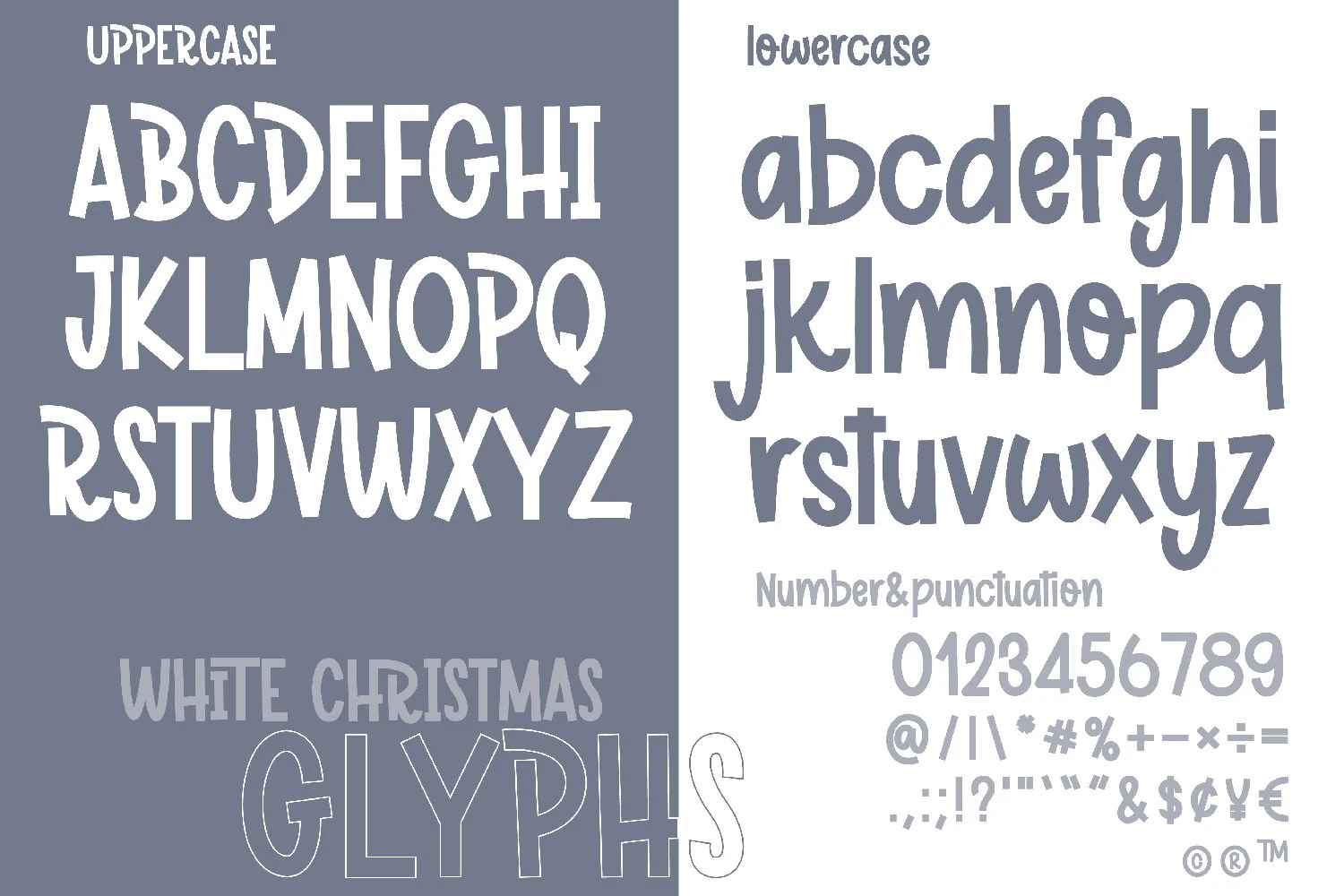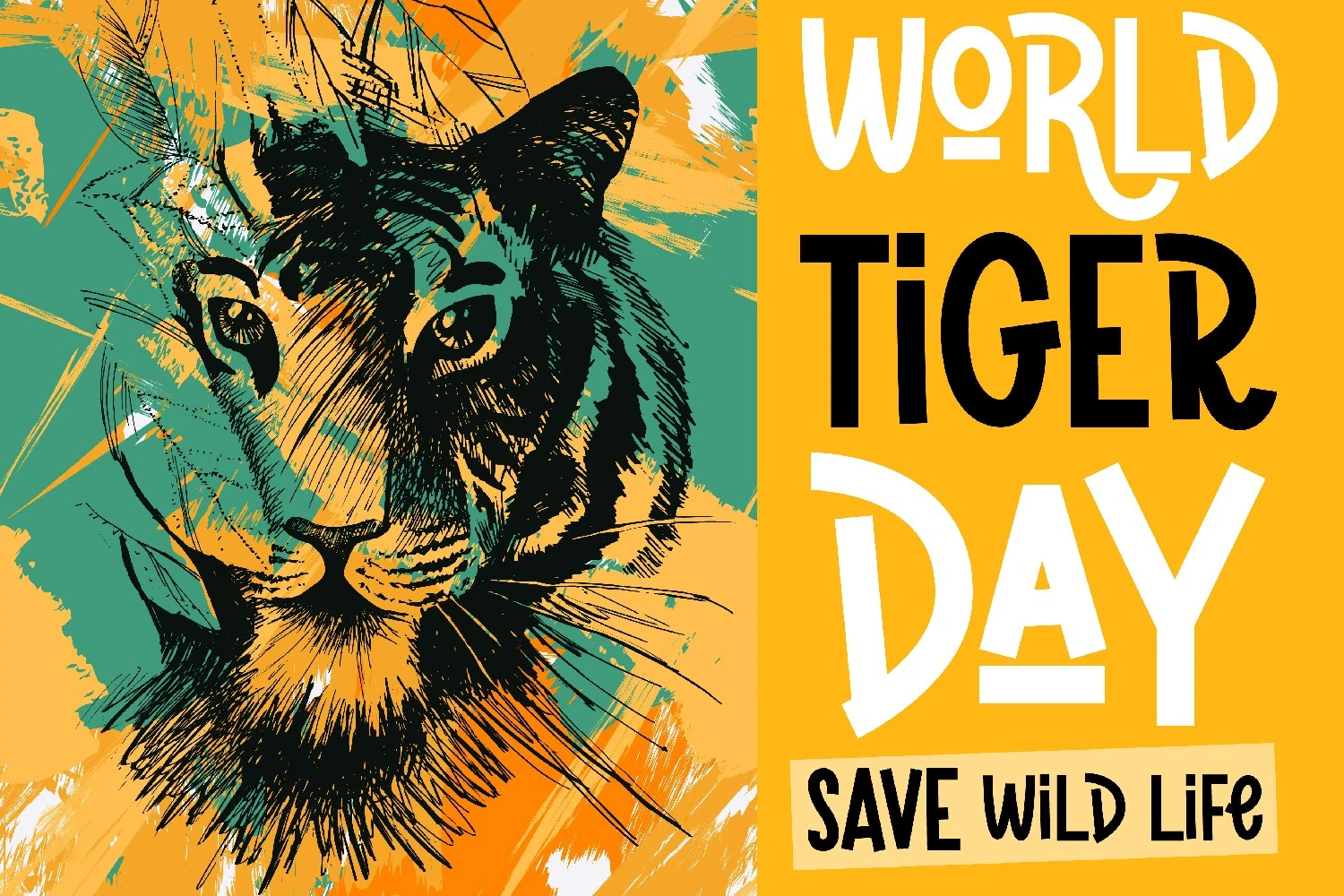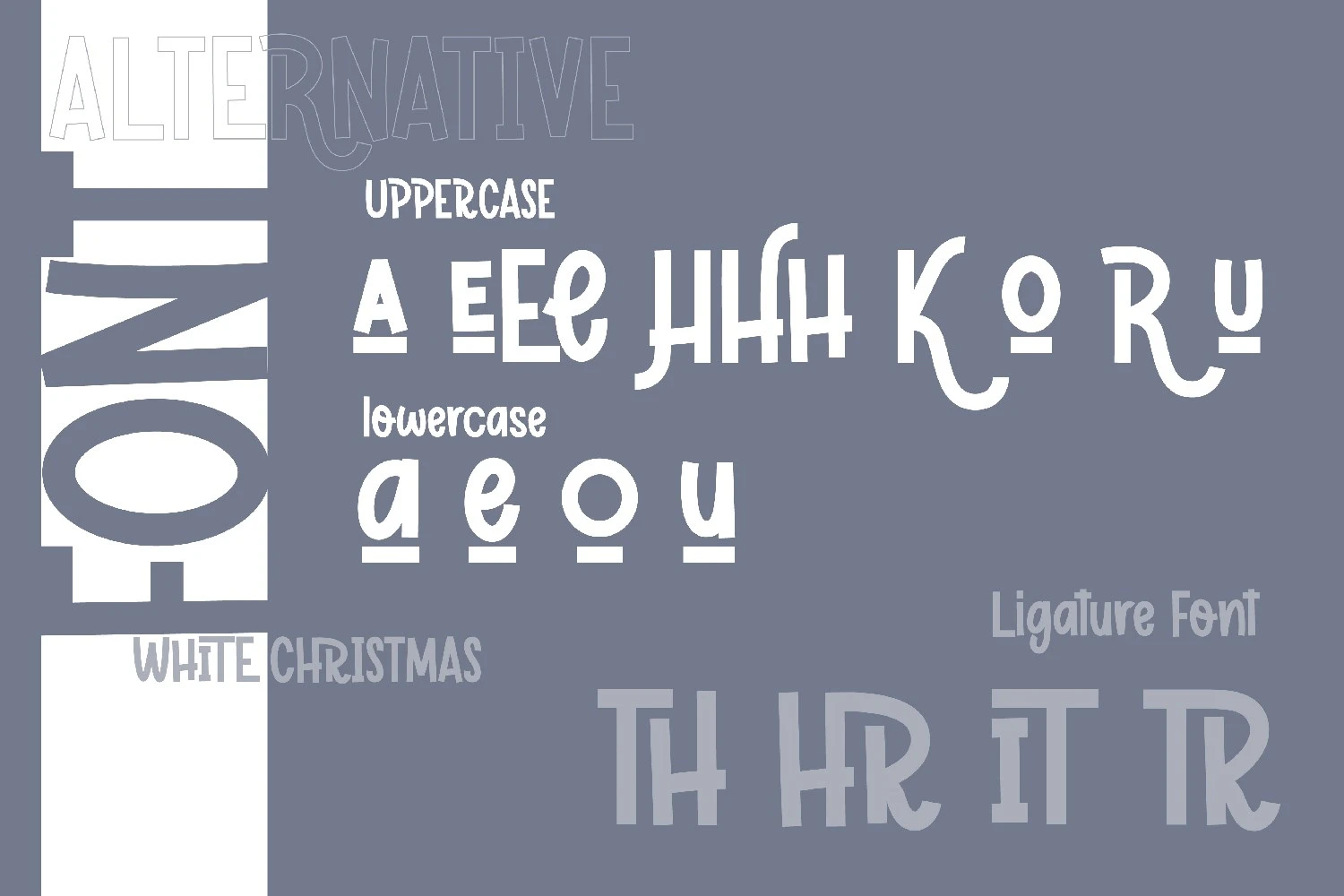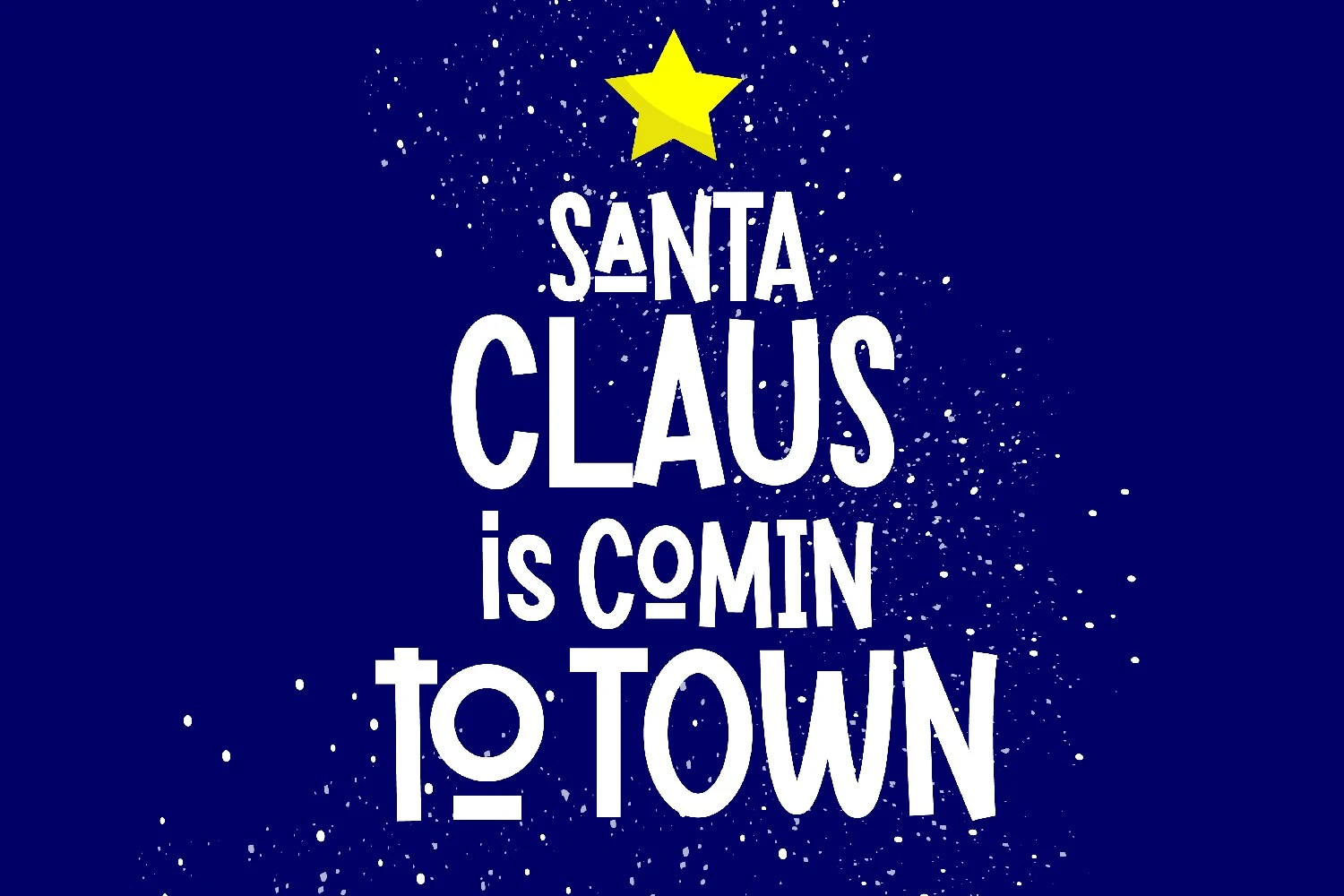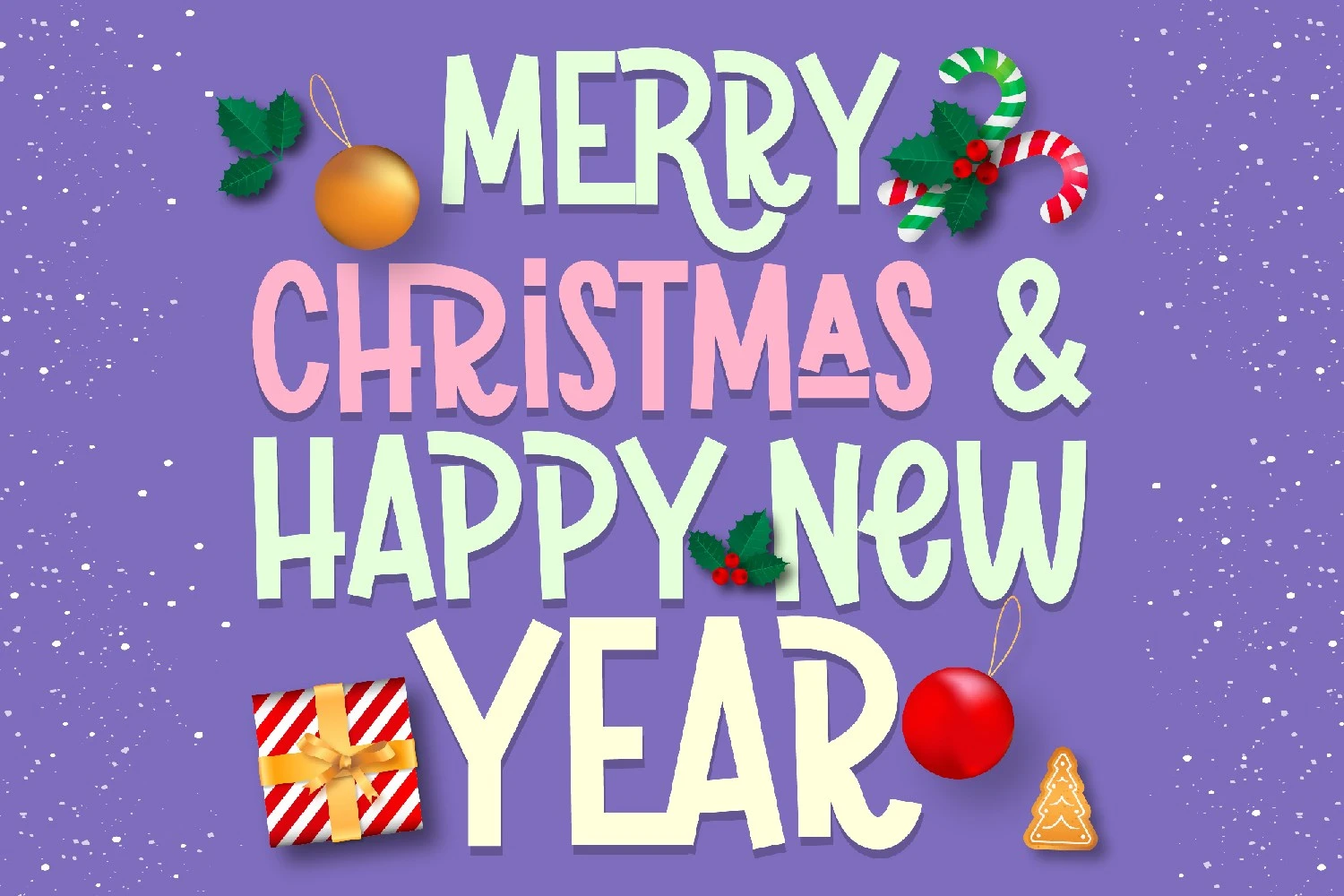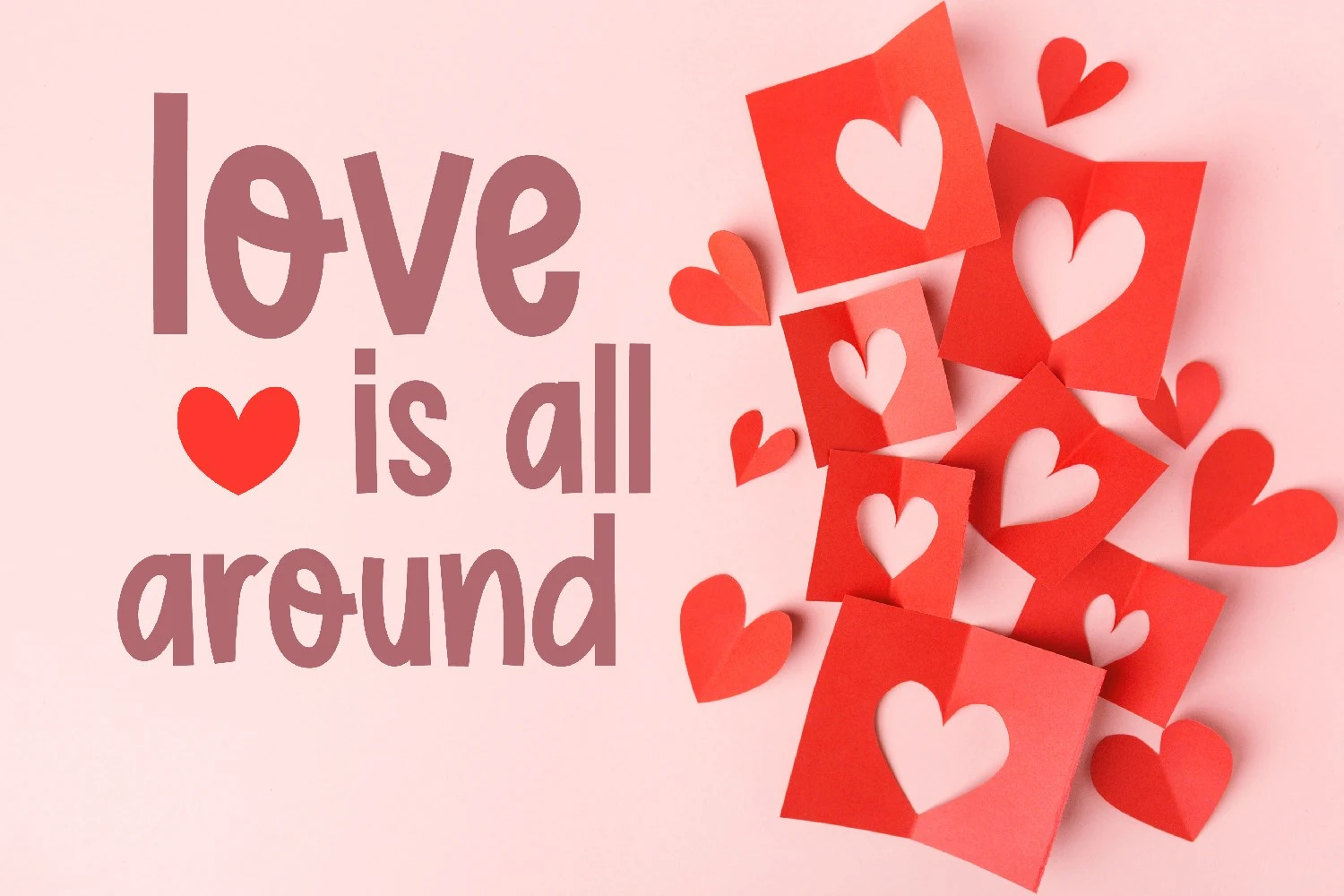
White Christmas is a lovely and sweet display font. No matter the topic, this font will be an incredible asset to your font library, as it has the potential to elevate any creation.
****** The font has alternative letters fonts and ligature font that can access with some software designs, such as Adobe Photoshop, illustrator, InDesign, Affinity designer, etc. Please check your software can access alternative font before purchase.